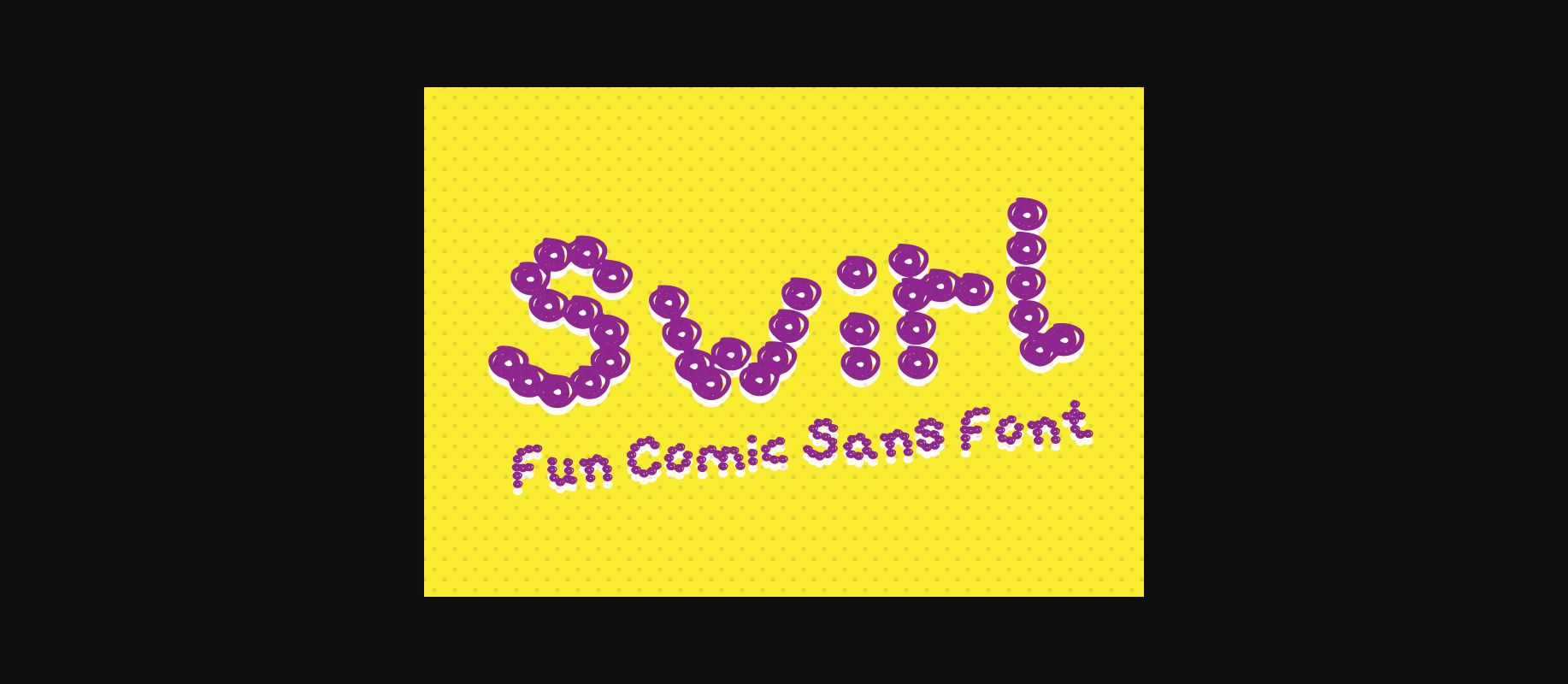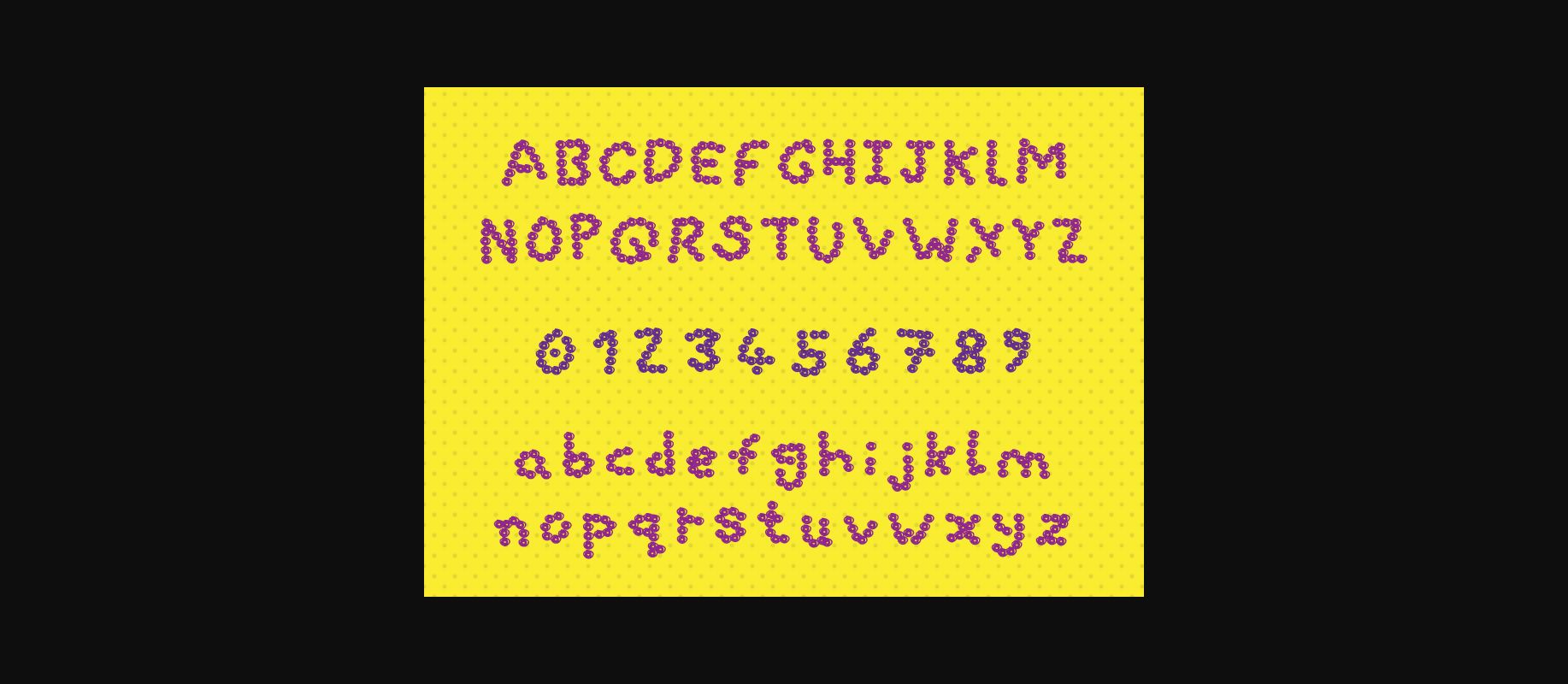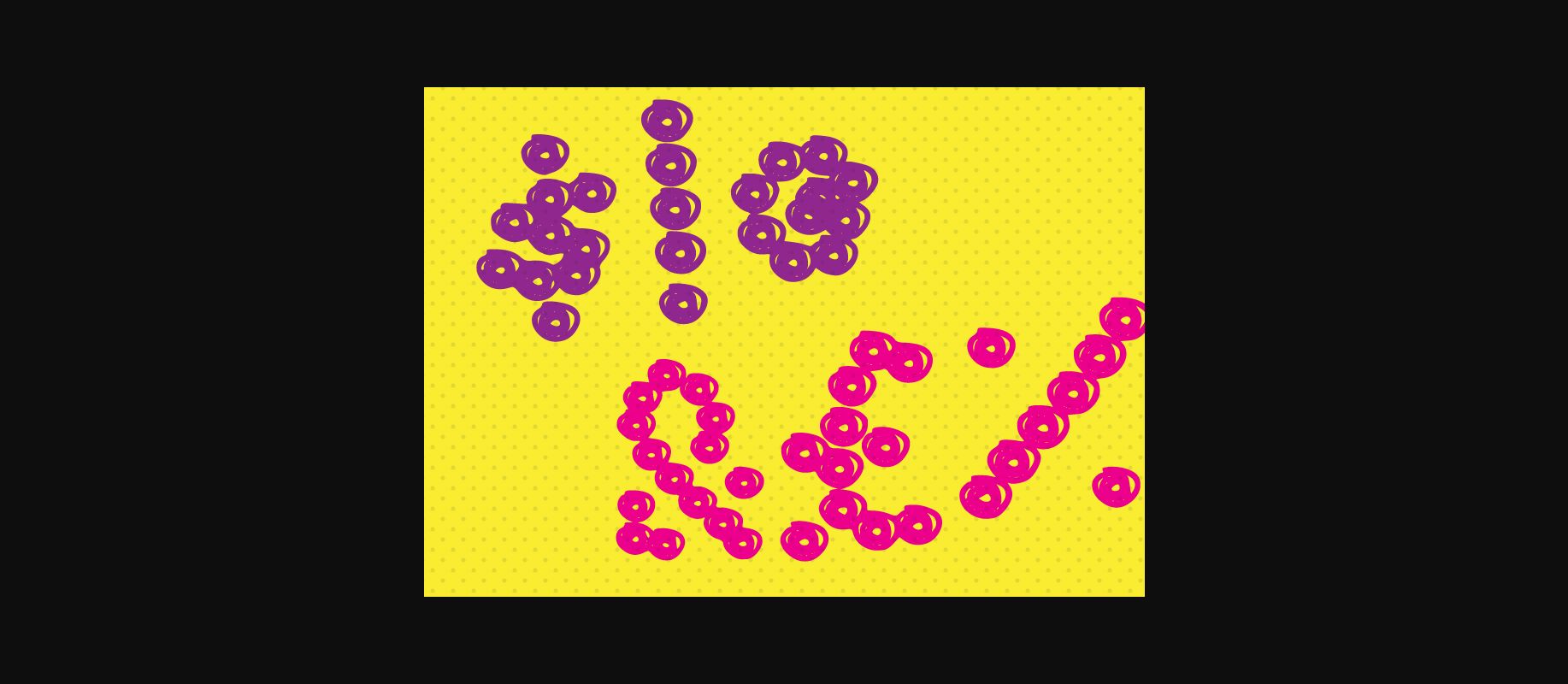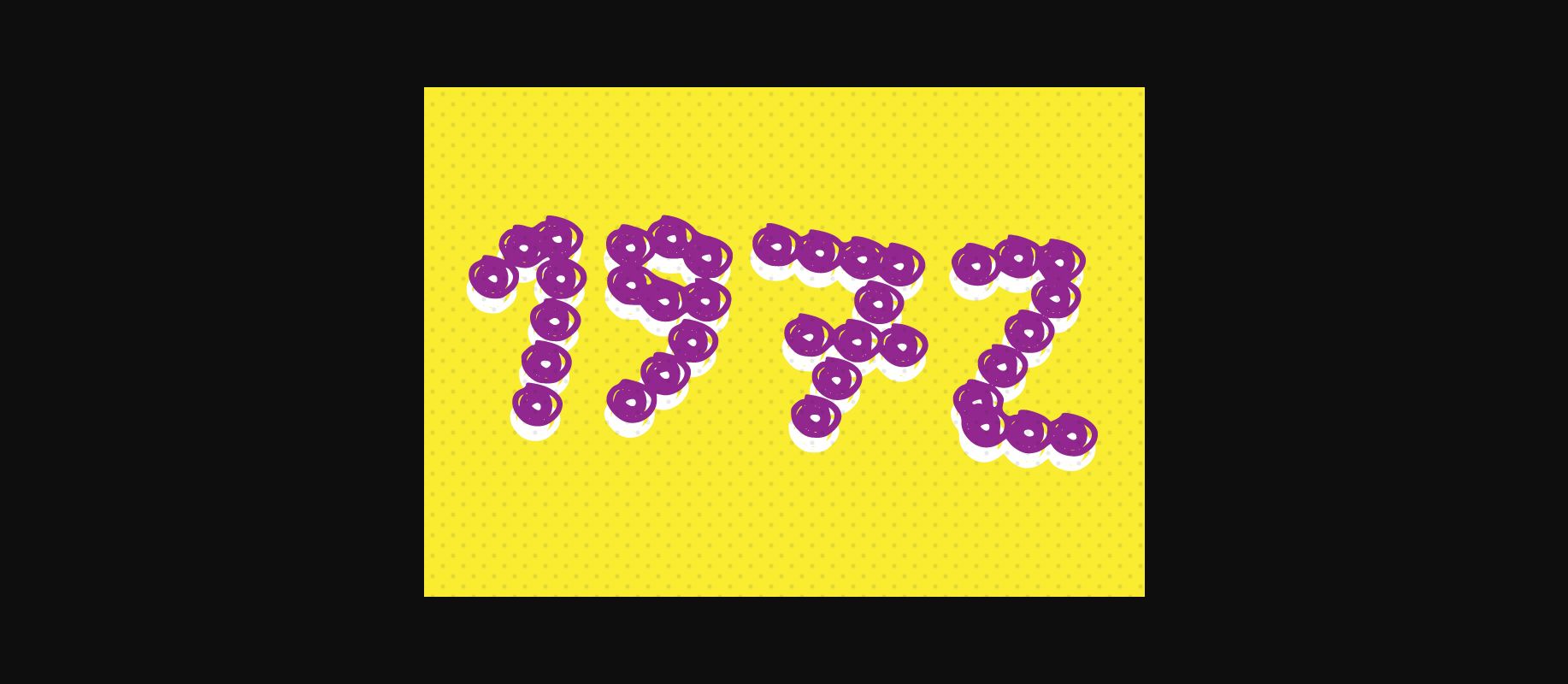
Swirl Font
About Swirl Font
Swirl is a fun, playful and dynamic comic-style font. Its made up of cute swirls that give it a whimsical and friendly feel!